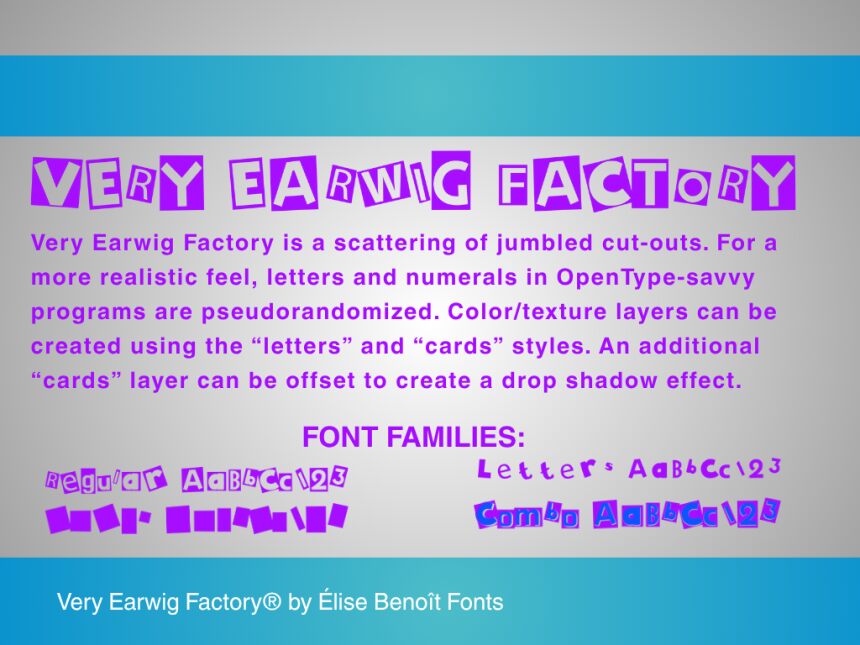
Very Earwig Factory
Very Earwig Factory font by Élise Benoît Fonts is a free decorative display font built around a gleeful cut‑paper vibe. Each glyph sits inside a lopsided black tile, tilting and shimmying just enough to feel hand‑made-like collage letters pasted with inky fingers. The result is loud, bouncy, and a little mischievous, with chunky edges that hold their shape even at small headline sizes.
Using Very Earwig Factory, short titles snap to attention and read with a punchy, stop‑motion rhythm. It shines on party posters, Halloween invites, indie zines, toy or craft packaging, school‑fair banners, and social thumbnails. Keep headlines big and give them air; pair this free font with a clean geometric sans for body copy to let the tiles do the shouting.